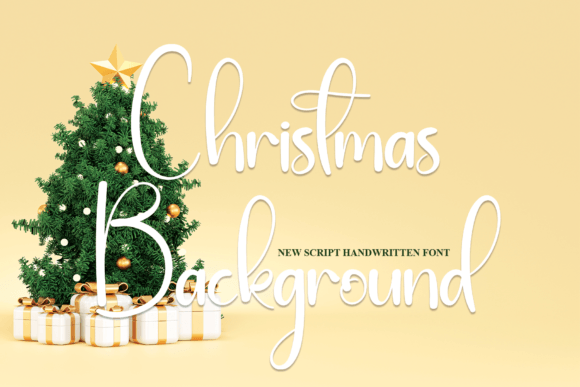
Dive into the captivating world of Christmas Background Font, a mesmerizing script that evokes the warmth and cheer of the holiday season. This enchanting typeface is a stroke of genius from the masterminds at Misterletter.co, crafted with meticulous attention to detail to bring a touch of magic to your creative endeavors.
Feast your eyes on the latest style letters, each a masterpiece that dances across the page like twinkling fairy lights. Whether you're designing eye-catching wall displays, crafting elegant wedding invitations, or captivating your audience with social media posts, logos, and advertisements, Christmas Background Font will transform your designs into breathtaking works of art.
Step into a realm of boundless creativity where imagination flourishes. Let the enchanting curves and whimsical flourishes of this font elevate your product packaging and designs, making them stand out from the ordinary. Create labels that whisper stories, photography that captures the essence of the season, and watermarks that add a touch of festive finesse.
The possibilities are endless with Christmas Background Font. Whether you're penning heartfelt invitations, designing beautiful stationery, or embarking on any project that begs for a touch of handwritten charm, this font will effortlessly add a touch of magic.
Indulge in the exquisite craftsmanship of Christmas Background Font and elevate your creations to new heights. Its versatility knows no bounds, empowering you to turn your design dreams into reality. Let the spirit of the season guide your every stroke, and experience the transformative power of this unforgettable script.